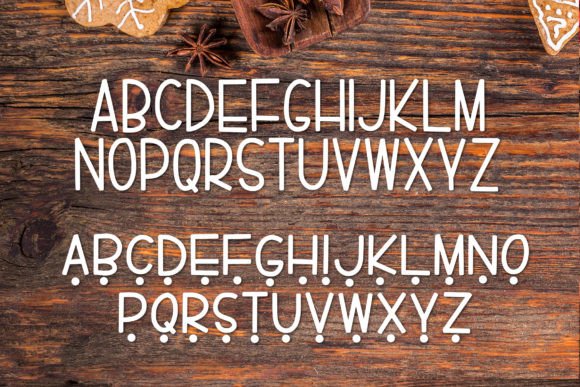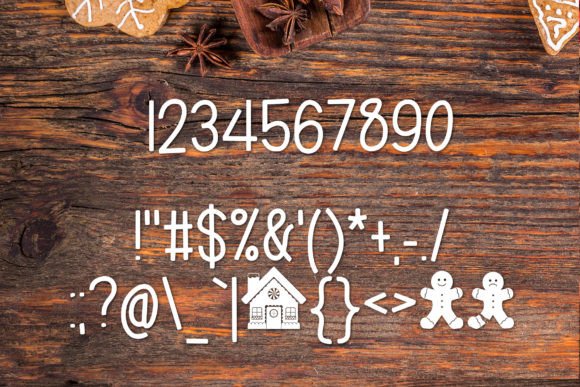
Get into the holiday spirit with the Gingerbread font!
The holiday season is upon us, and what better way to get into the spirit than with a font that’s as sweet as freshly baked cookies? Look no further than the Gingerbread font, a delightful and playful typeface that’s perfect for festive designs. With its cheerful, rounded letters and playful dots, this font brings the charm of the holiday season to your projects.
A Font that’s as Sweet as Cookies
The Gingerbread font is designed to evoke the warmth and coziness of the holiday season. Its rounded letters and playful dots give it a whimsical feel that’s reminiscent of childhood wonder and excitement. Whether you’re crafting Christmas cards, bakery signage, or seasonal décor, this font adds a tasty twist to every creation.
Perfect for Festive Designs
The Gingerbread font is perfect for designers and crafters who want to add a touch of holiday magic to their projects. Its festive and playful design makes it ideal for:
- Christmas cards and invitations
- Bakery signage and packaging
- Seasonal décor and home decor projects
- Holiday-themed crafts and DIY projects
Key Features of the Gingerbread Font
The Gingerbread font has several key features that make it a standout choice for festive designs:
- Playful dots: The font features playful dots that add a touch of whimsy and fun to your designs.
- Cheerful, rounded letters: The rounded letters give the font a cheerful and friendly feel that’s perfect for holiday designs.
- Whimsical feel: The font has a whimsical feel that’s reminiscent of childhood wonder and excitement.
- Easy to read: Despite its playful design, the font is easy to read and understand, making it perfect for use in a variety of projects.
Tips for Using the Gingerbread Font
Here are some tips for using the Gingerbread font in your designs:
- Pair it with complementary fonts: Pair the Gingerbread font with complementary fonts to create a unique and visually appealing design.
- Use it in combination with holiday imagery: Use the font in combination with holiday imagery, such as snowflakes, holly, or Christmas trees, to create a festive design.
- Experiment with colors: Experiment with different colors, such as red and green, to create a bold and eye-catching design.
- Use it for headings and titles: Use the Gingerbread font for headings and titles to add a touch of whimsy and fun to your designs.
| Font Name | Gingerbread Font |
| Author | kitaleigh |
The Gingerbread font is a delightful and playful typeface that’s perfect for festive designs. With its cheerful, rounded letters and playful dots, this font brings the charm of the holiday season to your projects. Whether you’re a designer or crafter, this font is sure to add a tasty twist to every creation. So why not get into the holiday spirit with the Gingerbread font?
The Gingerbread font is a wonderful addition to any designer’s or crafter’s toolkit. Its festive and playful design makes it perfect for holiday-themed projects, and its ease of use makes it accessible to designers of all skill levels. So why not give it a try and see how it can add a touch of holiday magic to your designs?